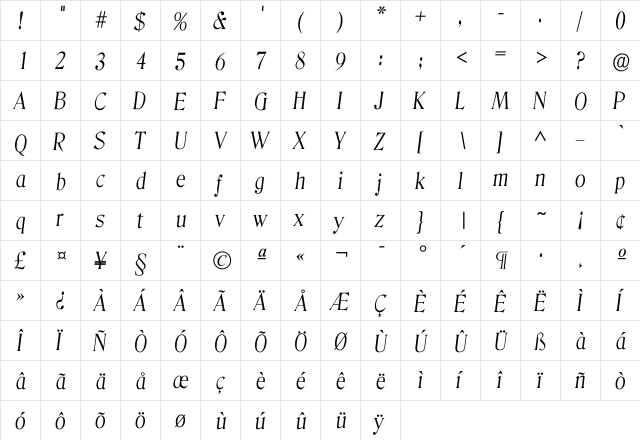
Idenver Light
Design Context for Idenver Typeface
Idenver is a composed and adaptable typeface that performs quietly and consistently across a wide range of design contexts. Its slender proportions lend an understated elegance to any composition.